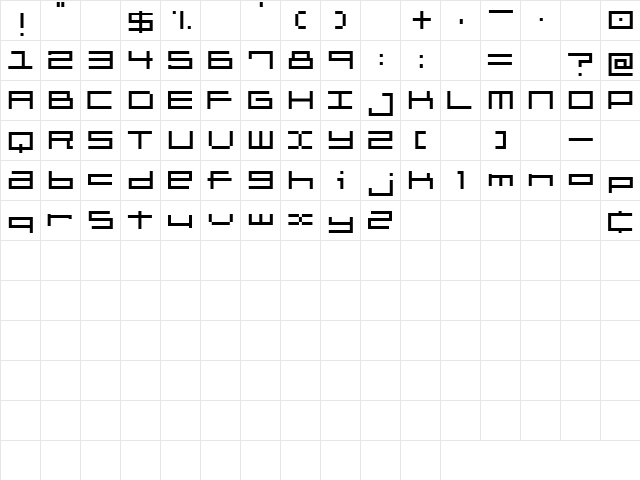
brickle Regular
Design Context for brickle Typeface
brickle takes a measured approach to typography — its balanced proportions and neutral character make it a reliable workhorse for both digital and print work.